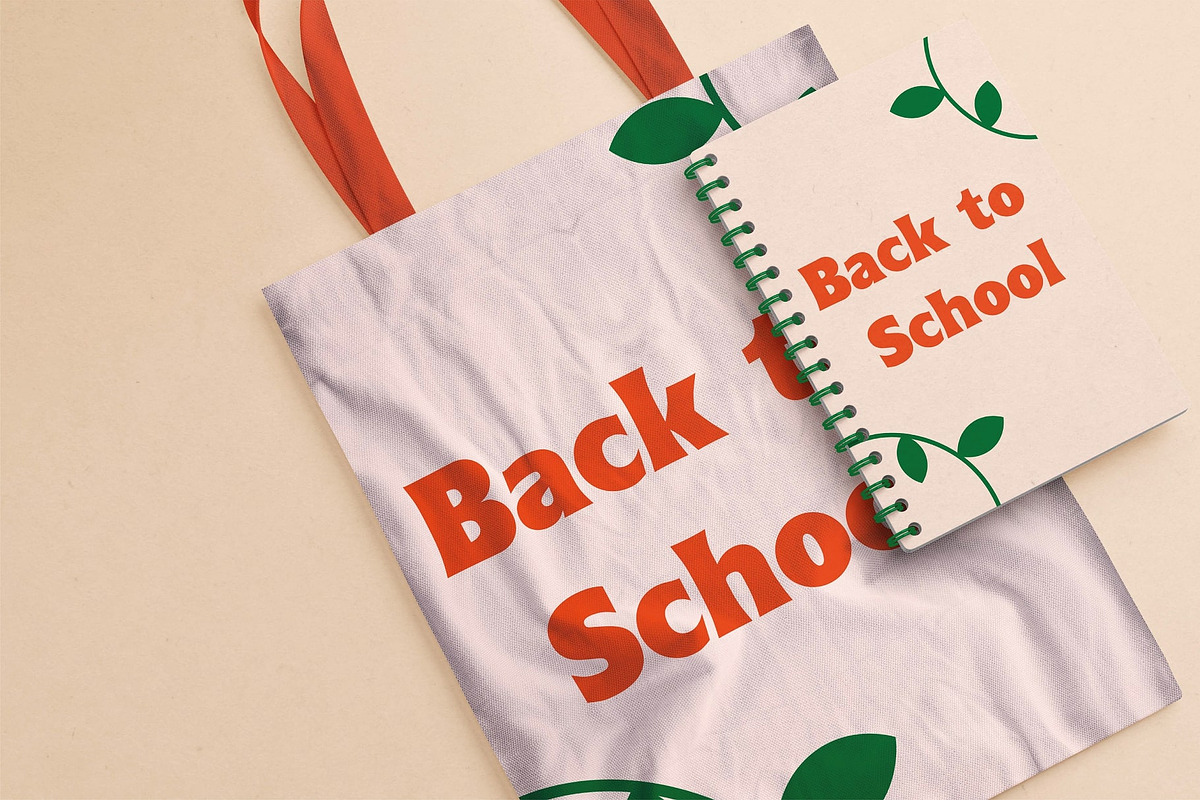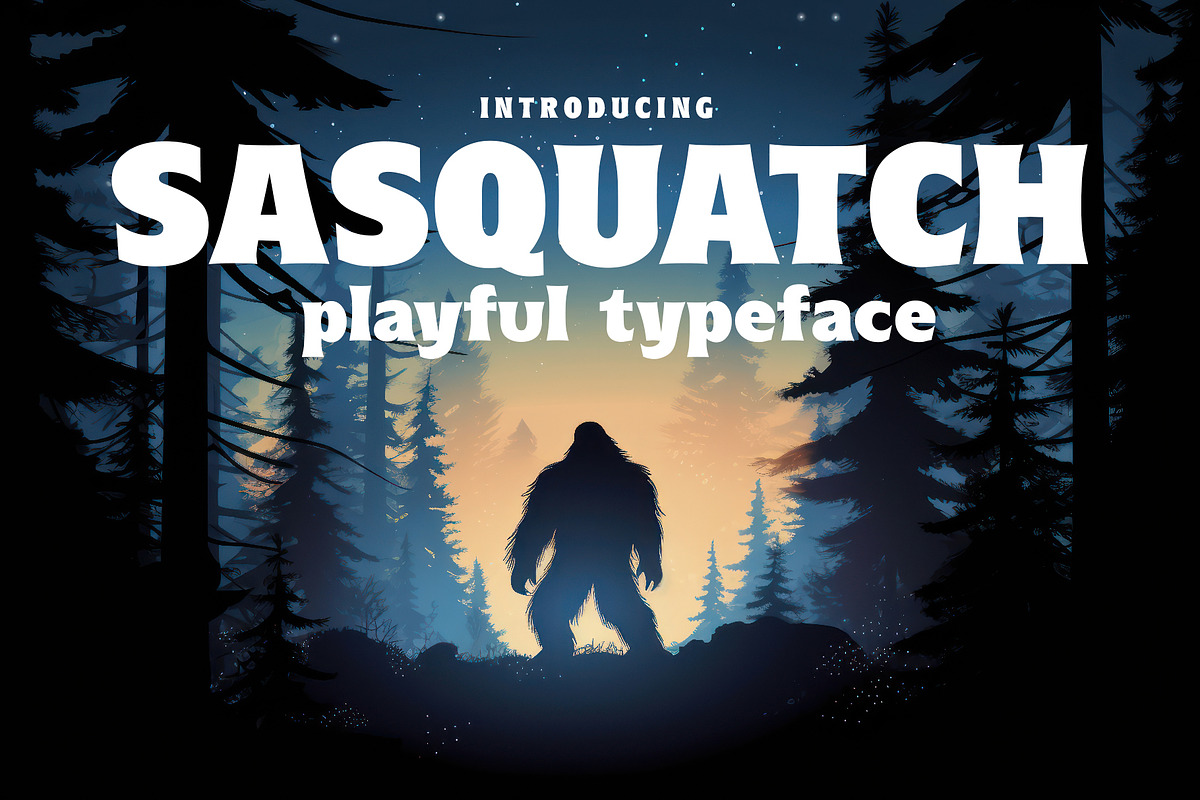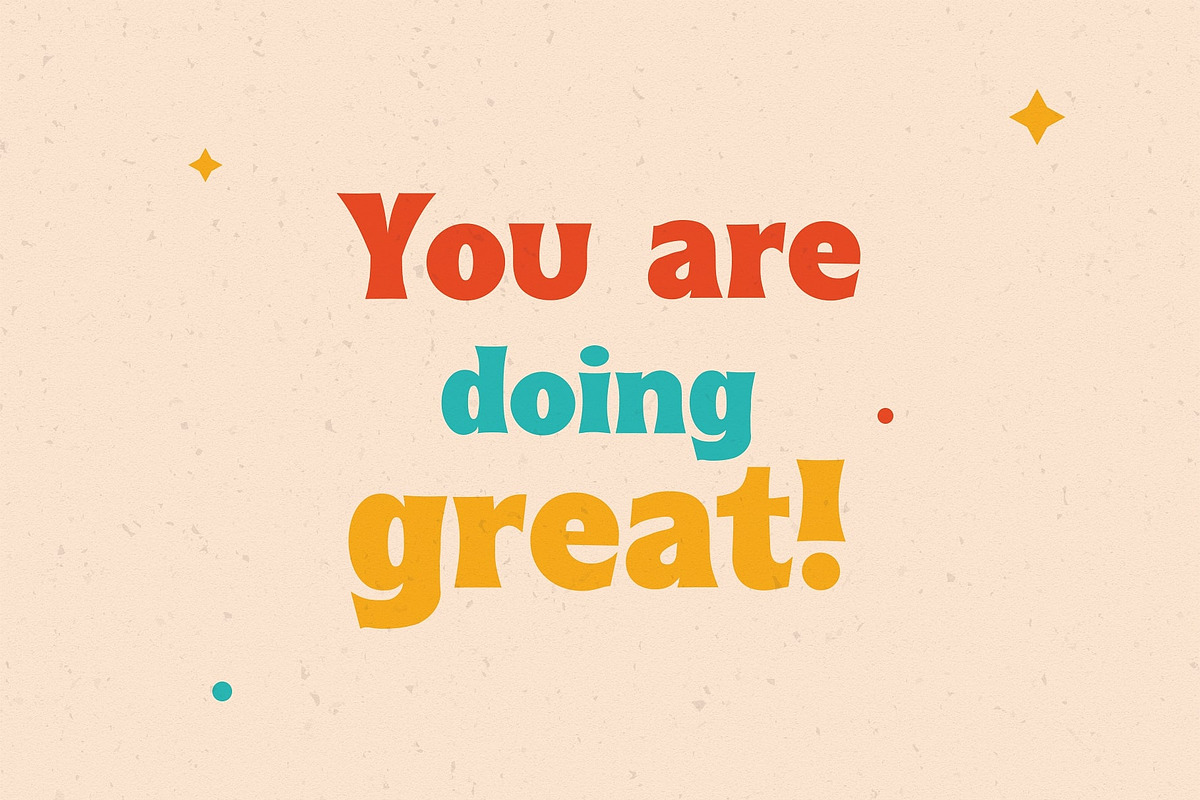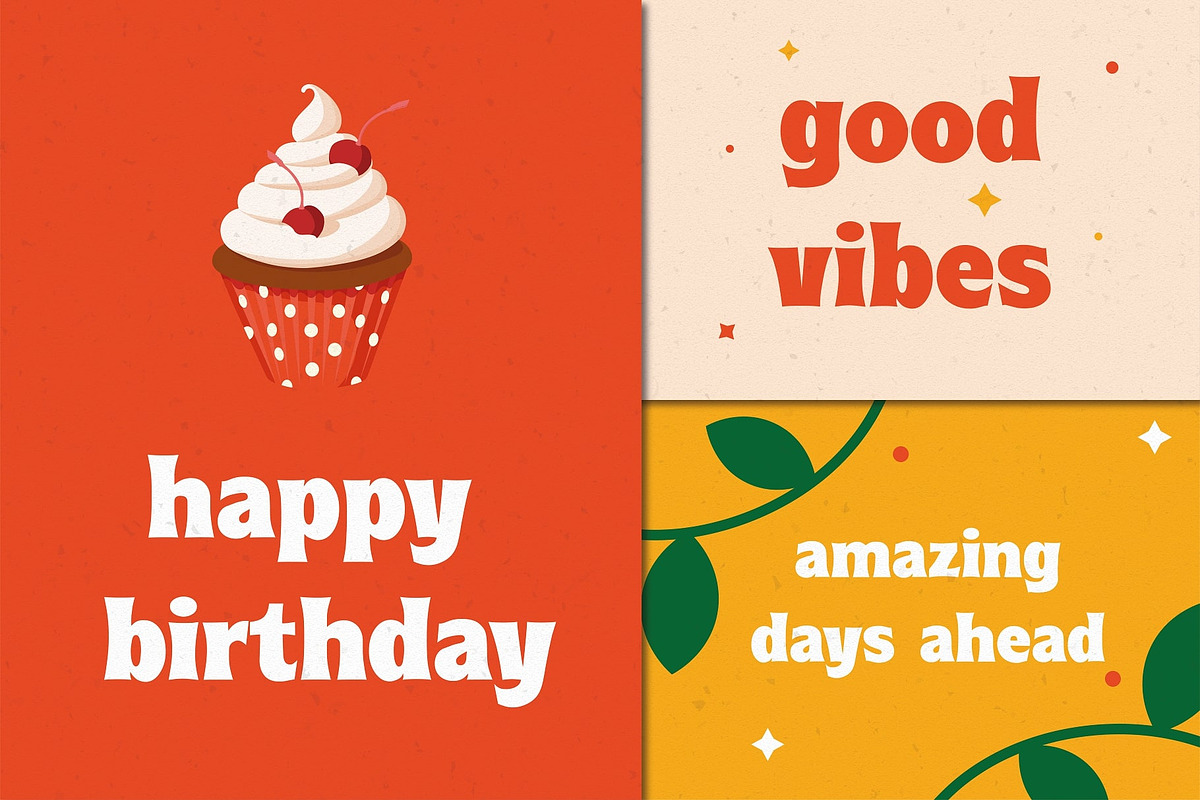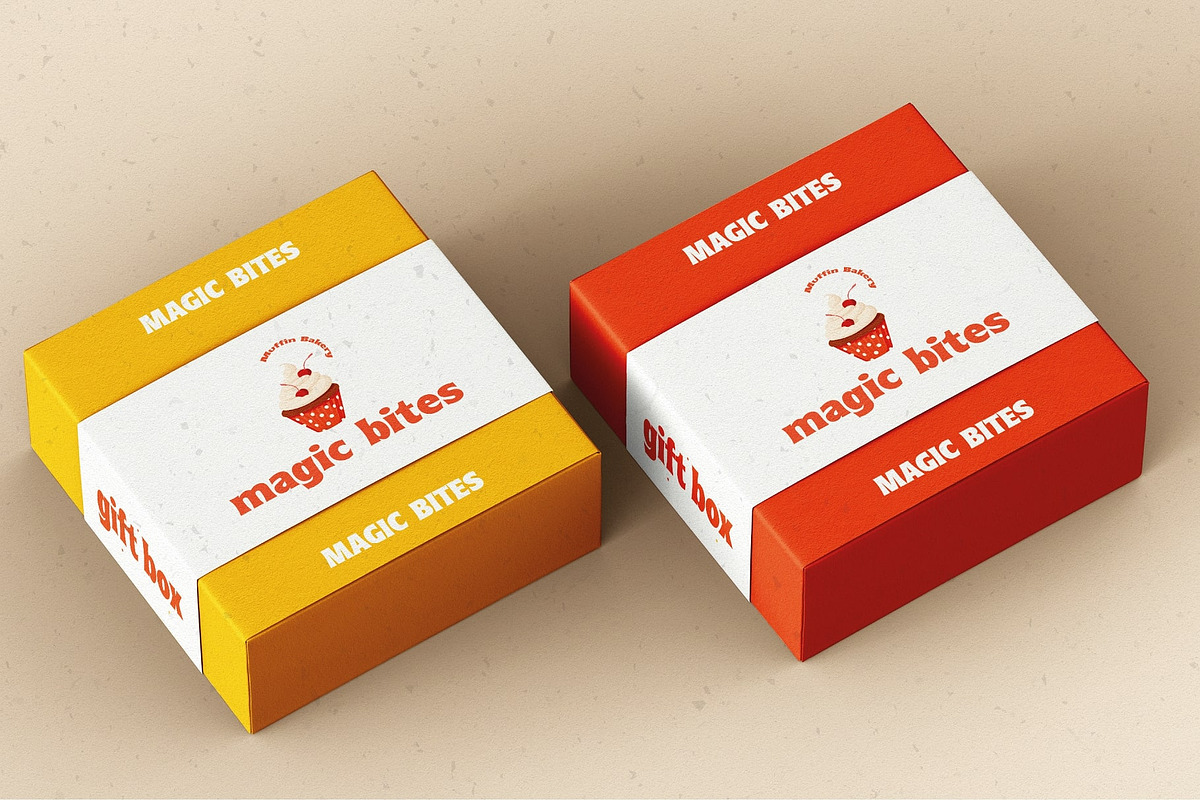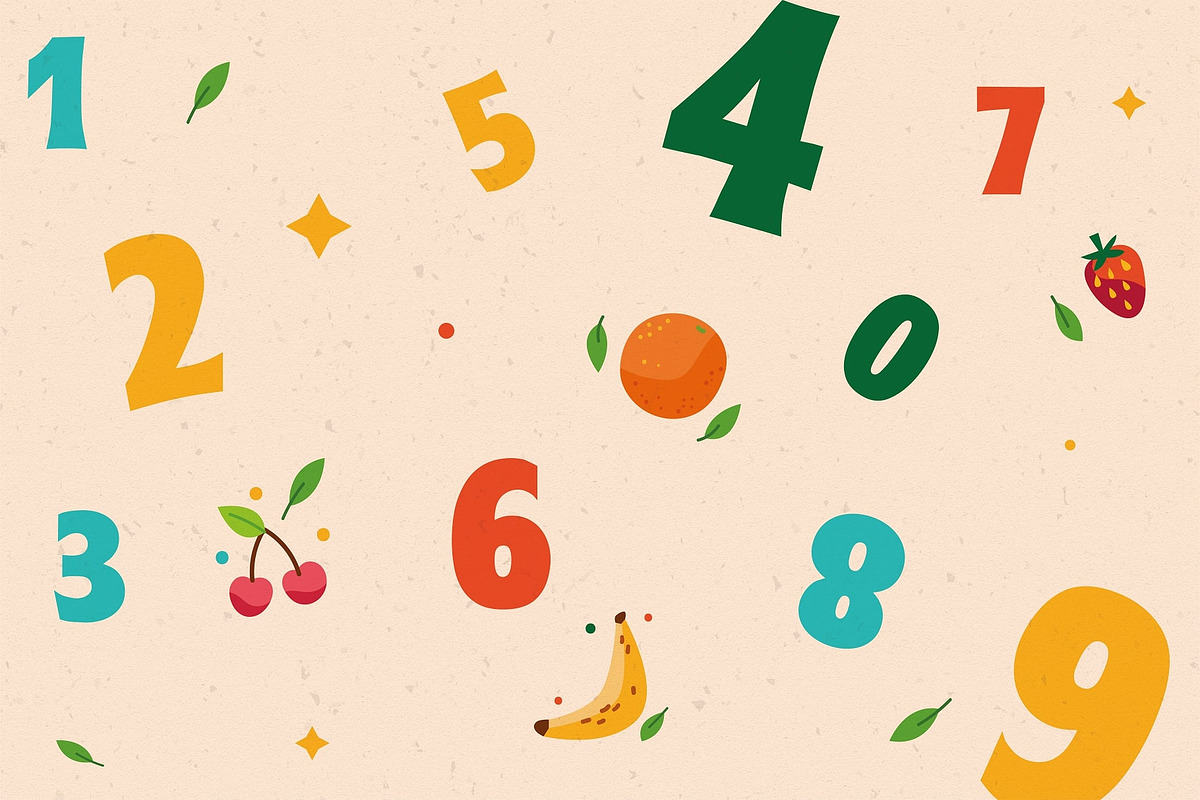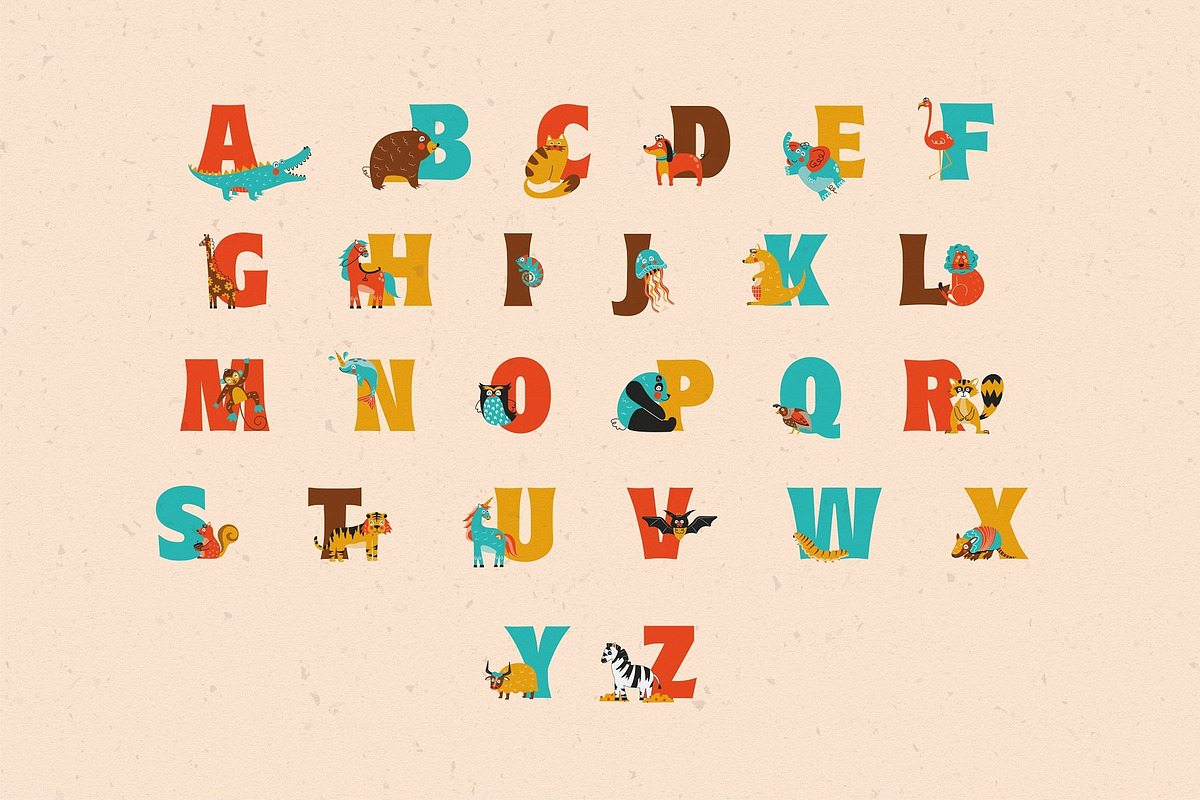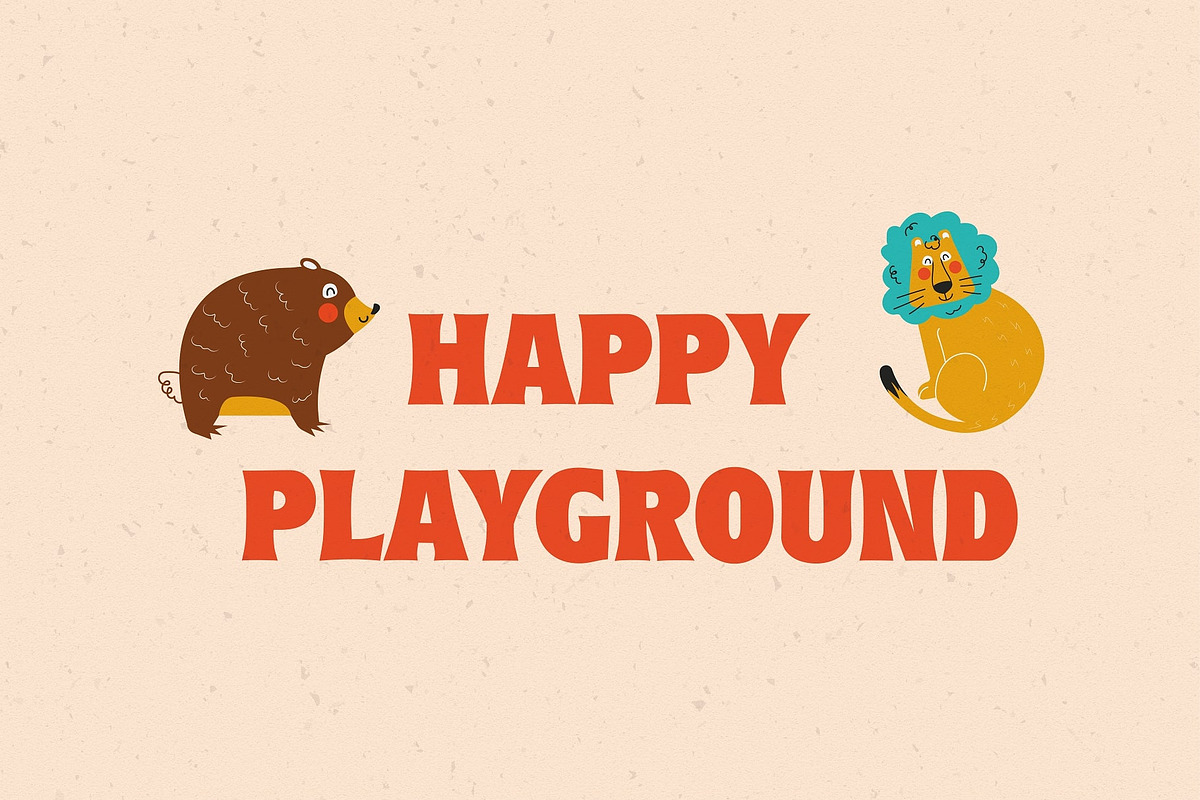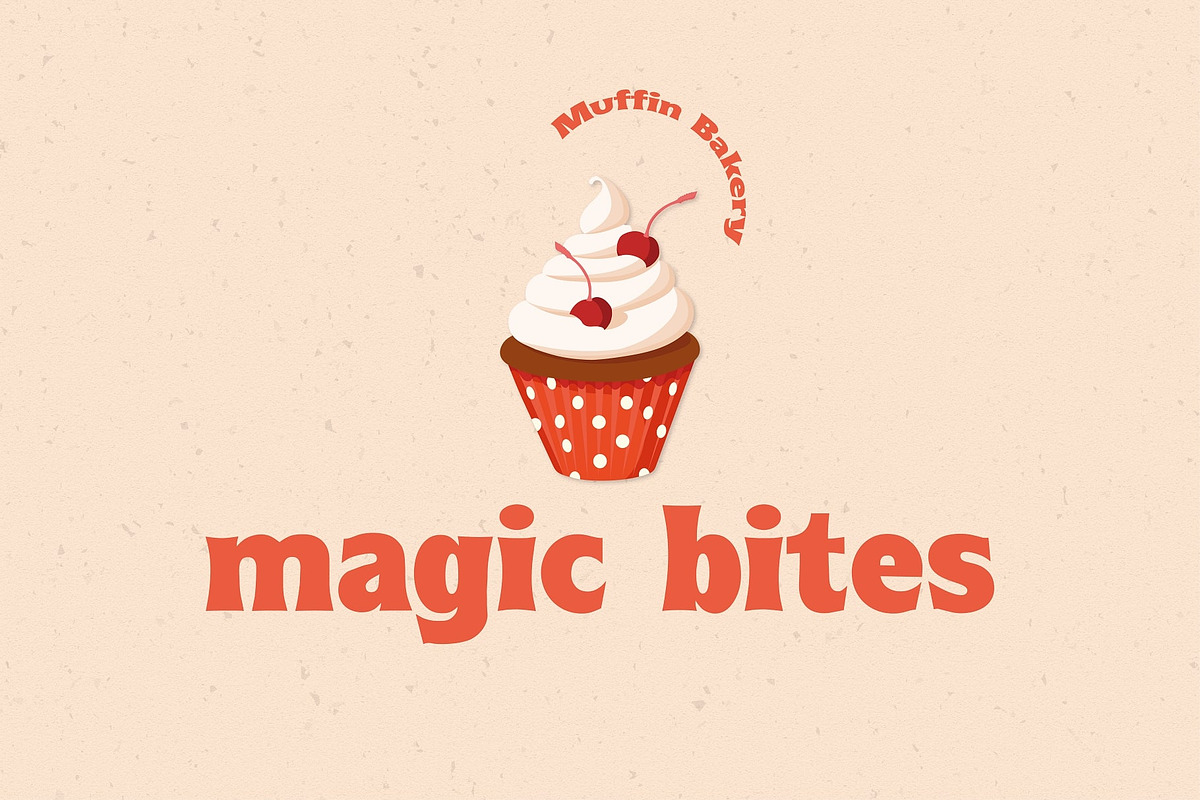
Sasquatch - Vintage Display Typeface
Sasquatch is a playful display typeface inspired by 1960s era. It's particularly aimed at children based projects. Its inviting nature makes it ideal for books, magazines, stationary, flyers, schools, labels, badges, packaging, advertising, and much more. Get creative!